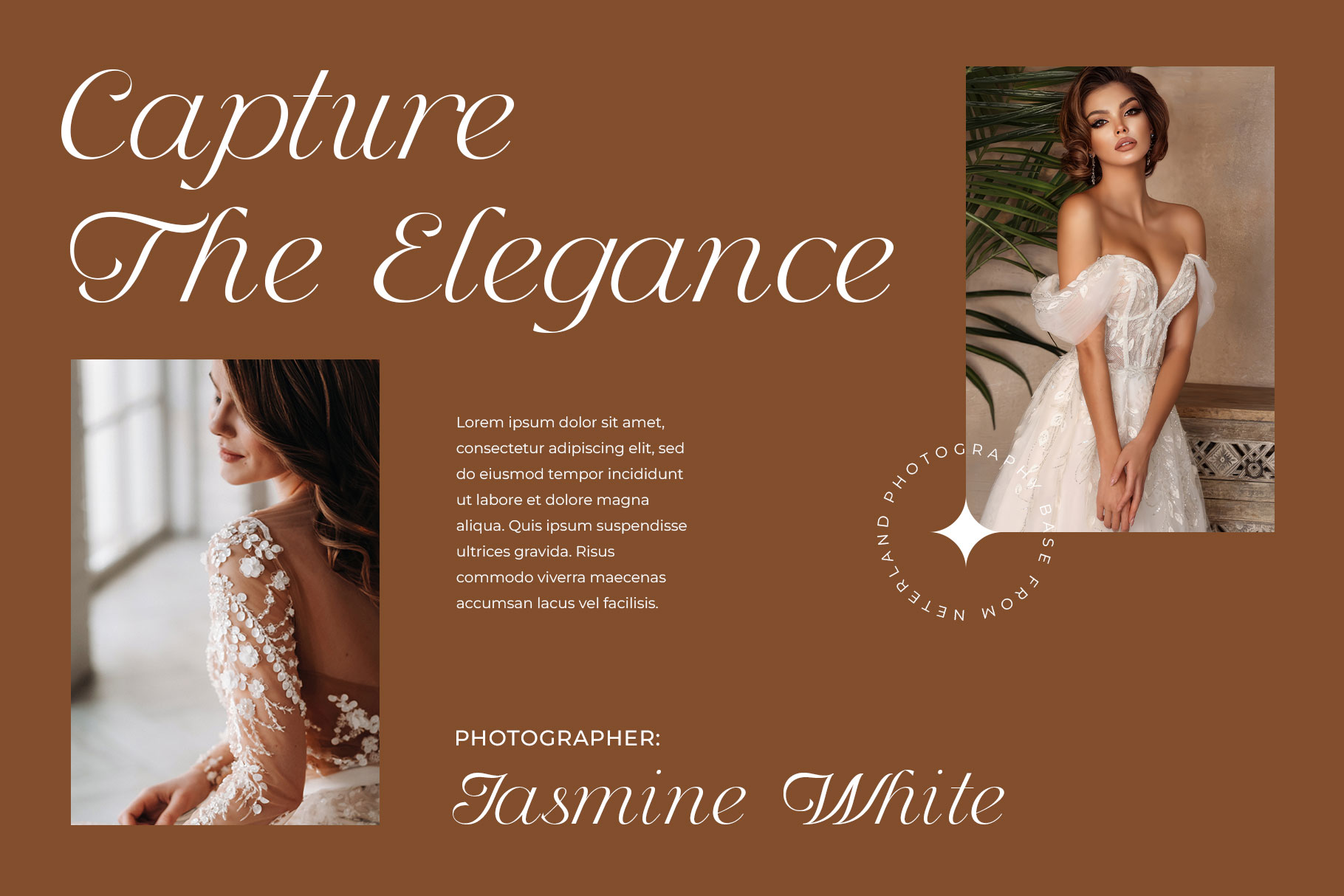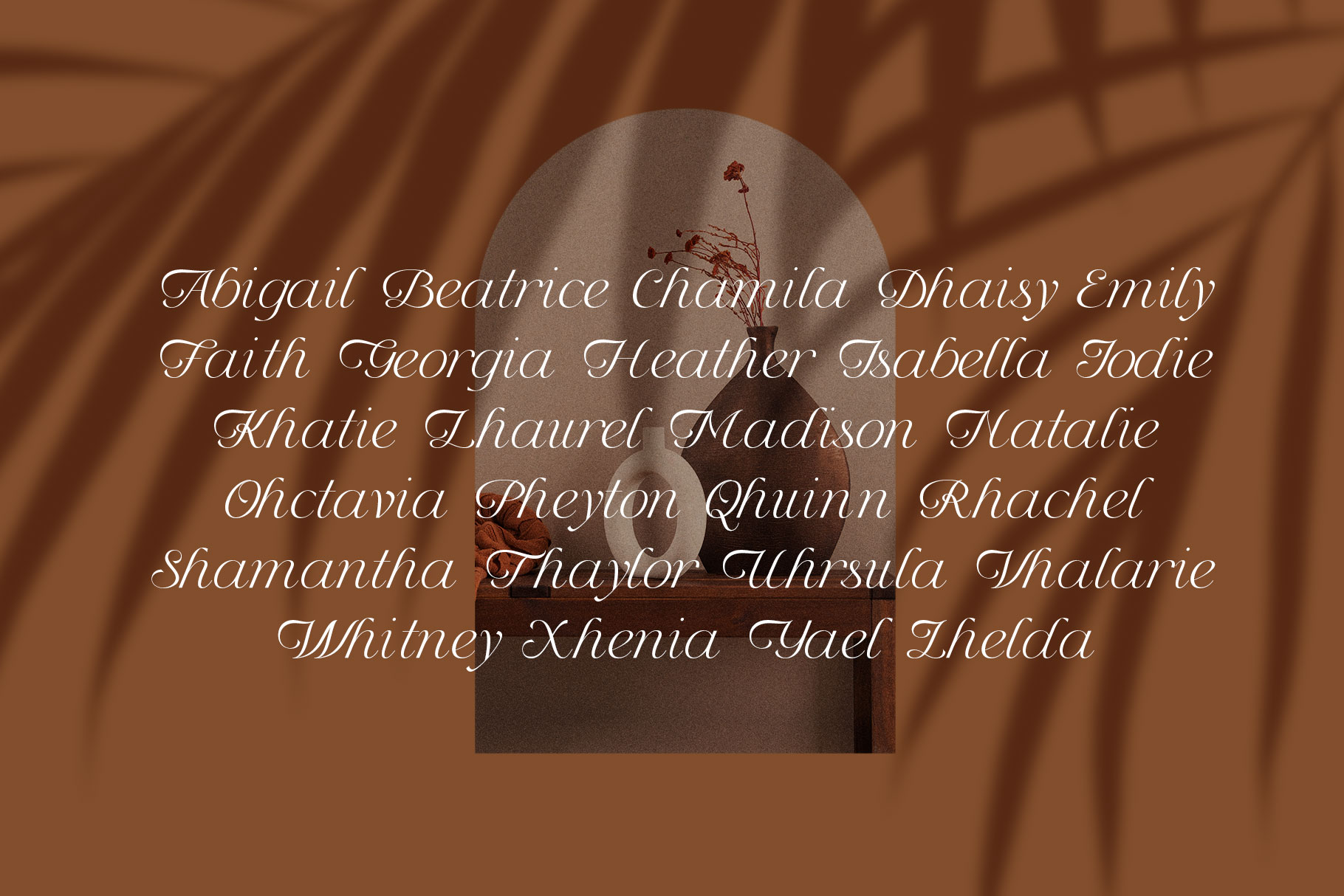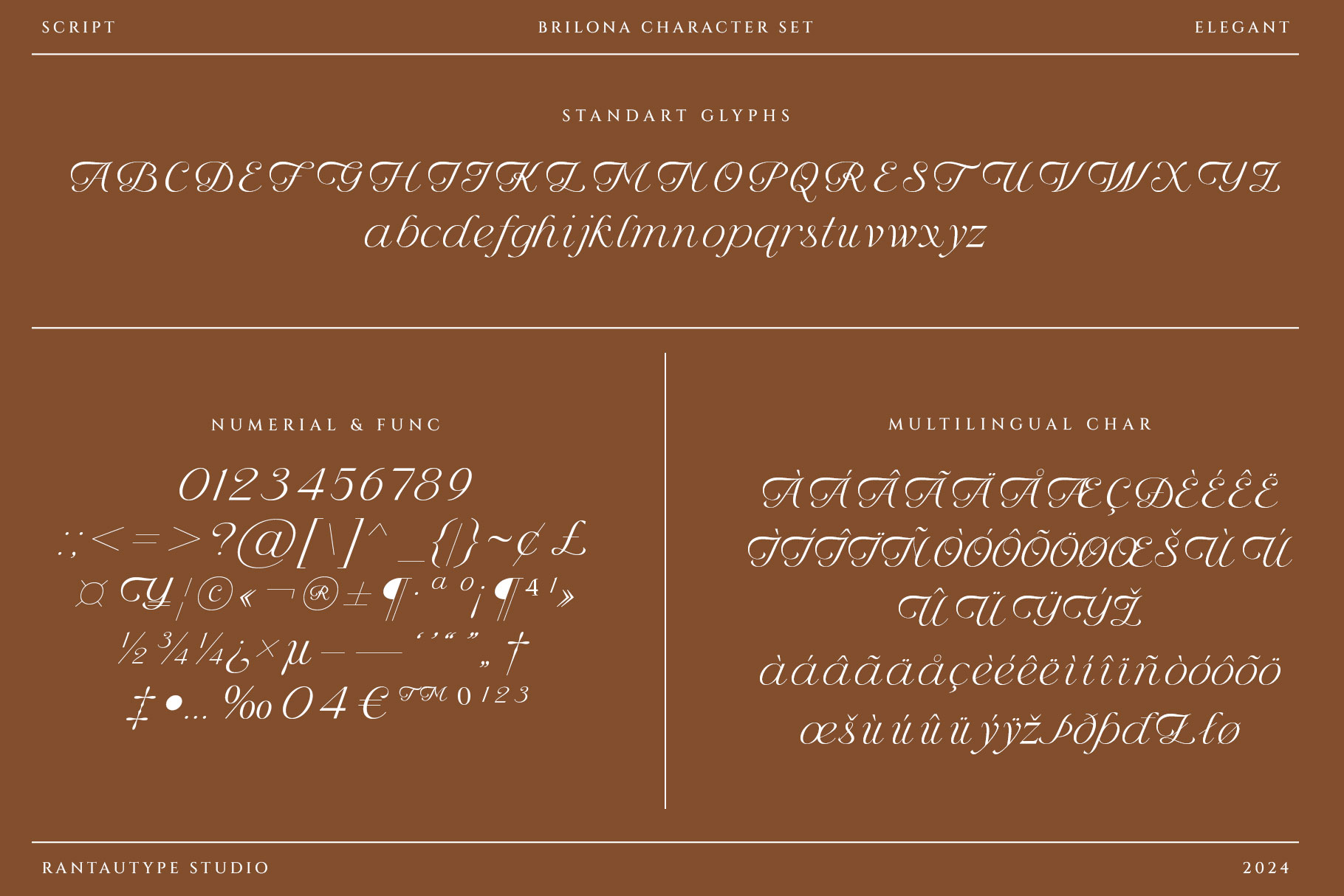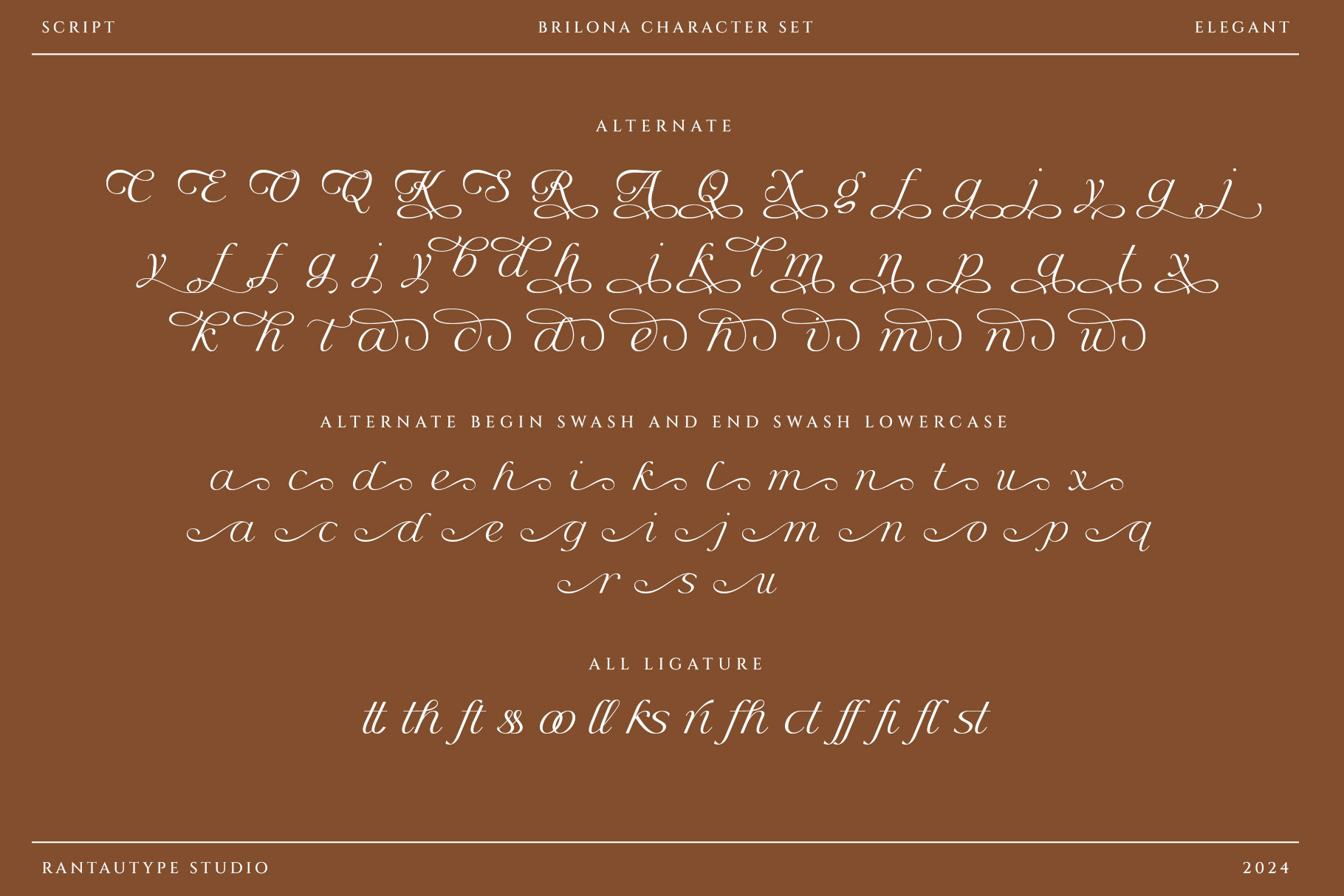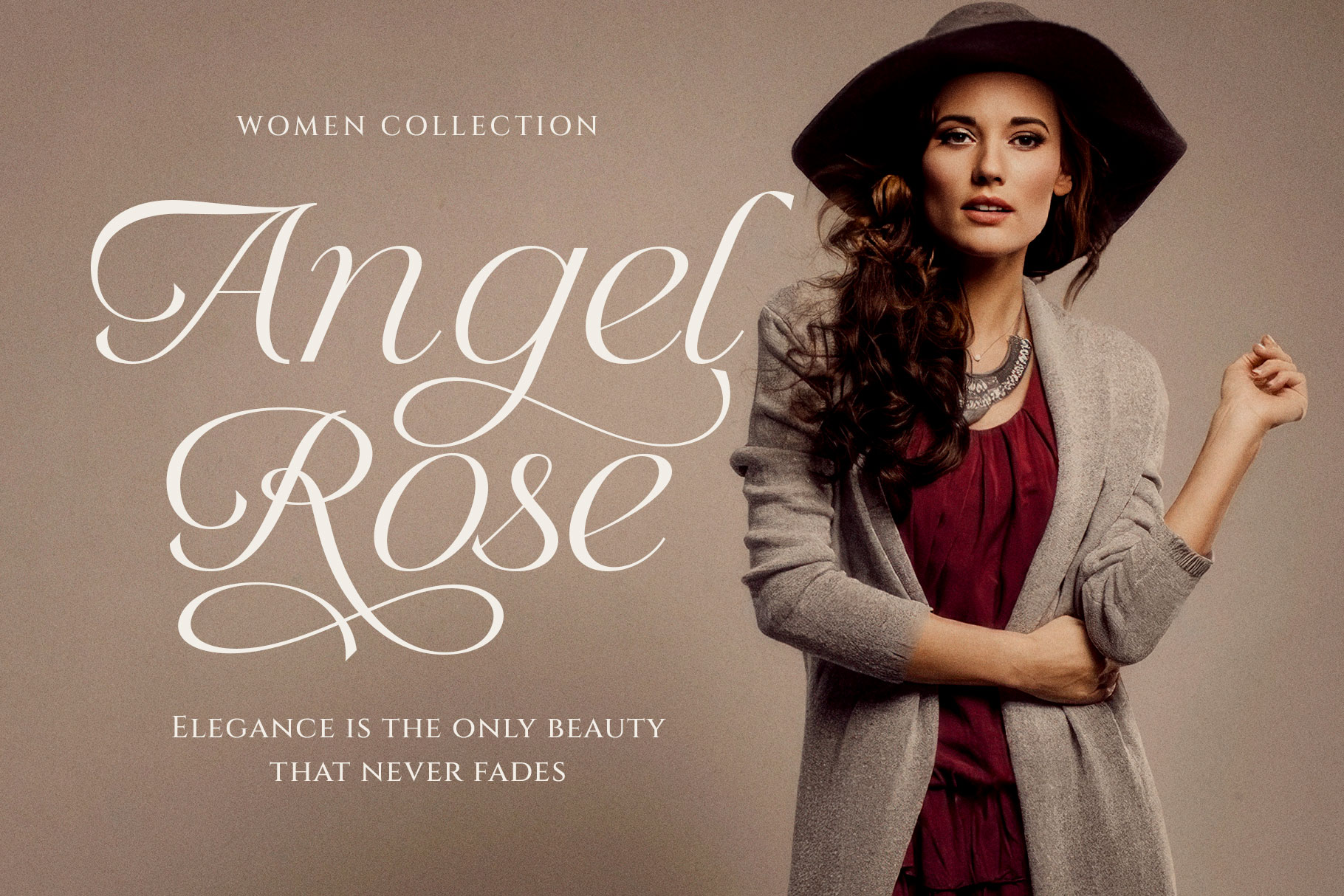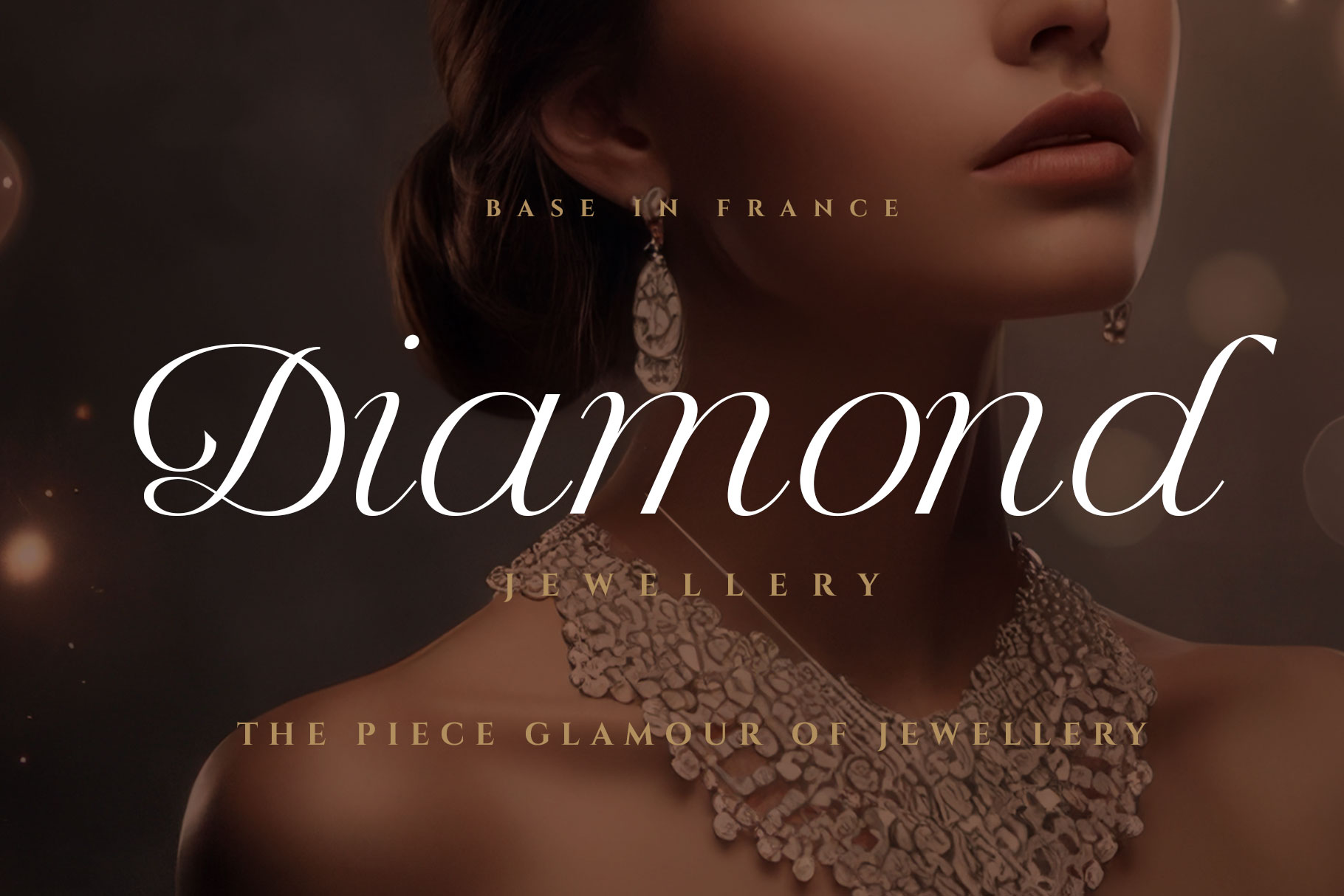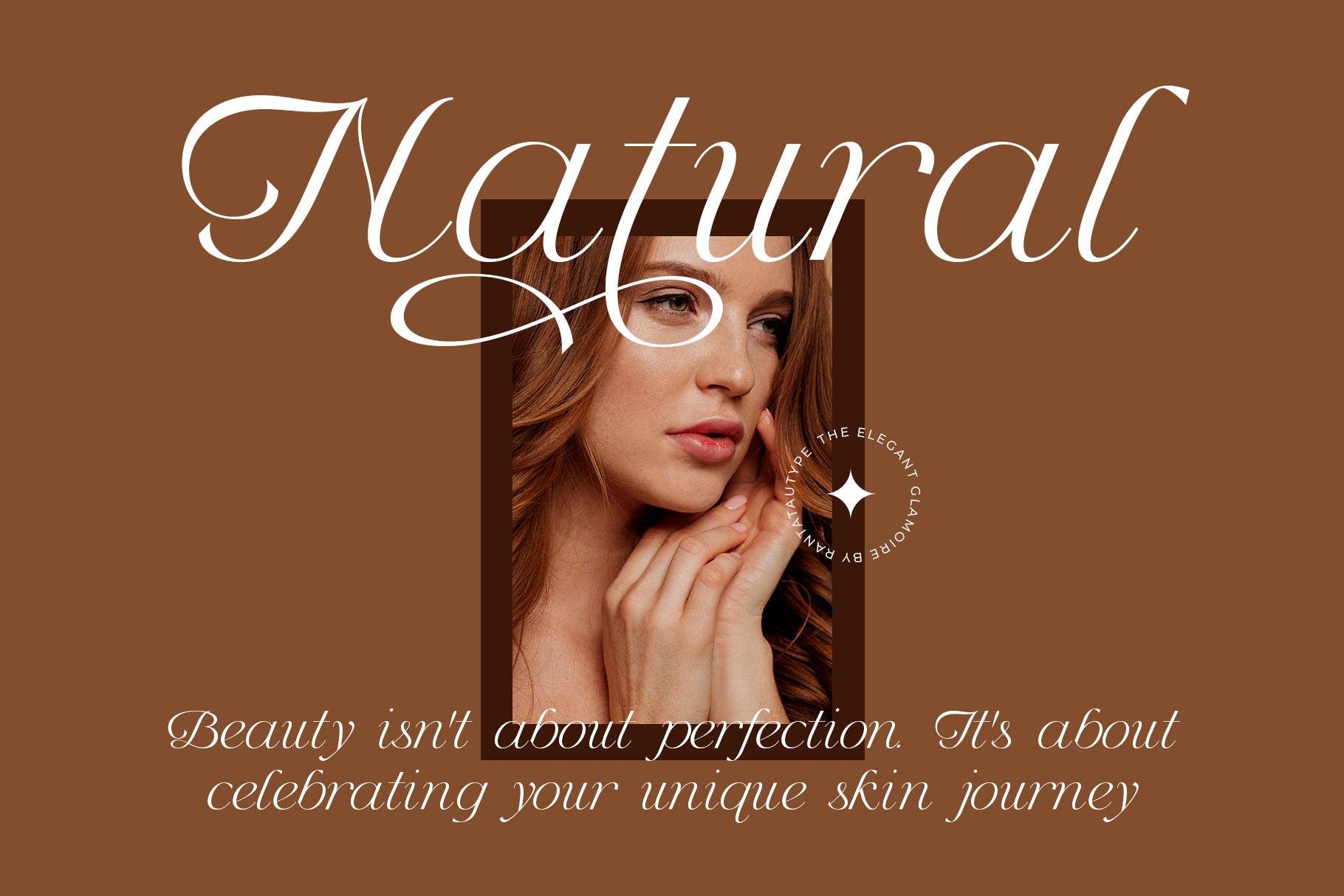
Brilona Modern Script Font
Brilona is modern script font that embraces elegance. Brilona come with beautiful flow uppercase make its delicate curves and refined details create a sense of sophistication and femininity.
Brilona is a beautiful choice for any creative endeavor, creating elegant, modern, chic, lifestyle design such as logotype, title, cover, branding, invitations, wedding designs, display and magazine, social media posts, advertisements, printed quotes, product packaging, corporate brand, product designs, labels, photography, watermarks, special events and any other project with elegant touch.